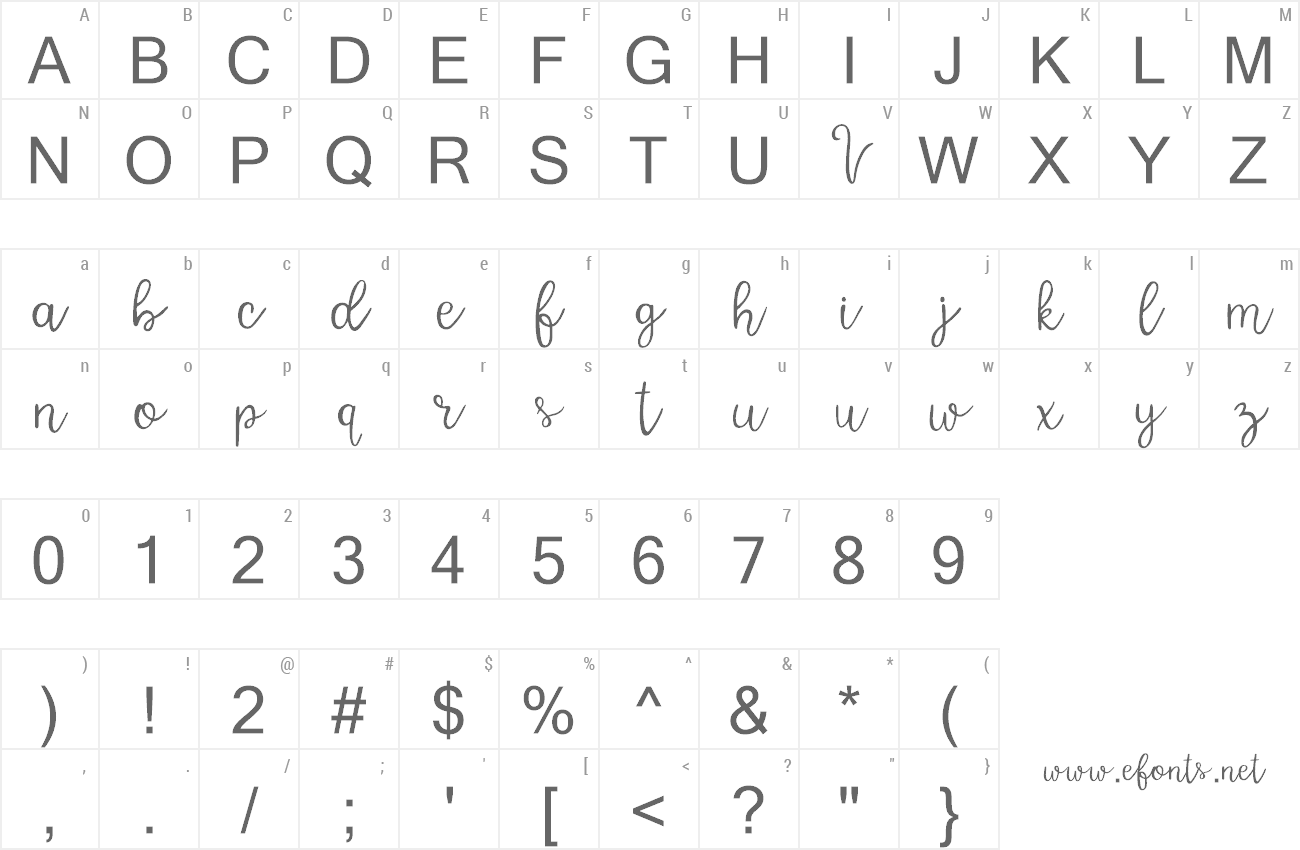
| Font name: | Varsity |
| Author: | Julia Koschler |
This is the demo version of my handwritten font 'Varsity'. Please contact me before any commercial use. Font for free use allowed only in personal project. For full version please contact me via mail. 'Varsity' is perfect for greeting cards, branding, stationery design, social media, packaging, magazine layouts, prints and more. Happy designing! |